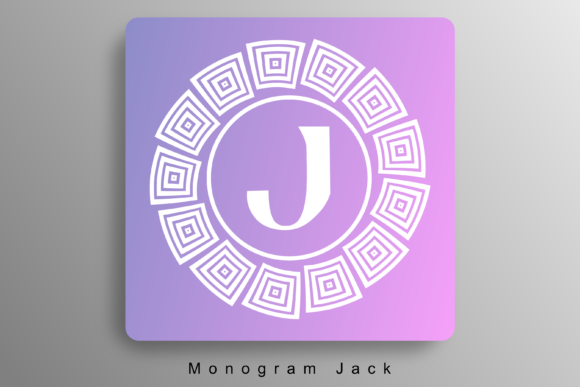
**Monogram Jack: The Unforgettable Touch to Your Creative Adventures**
In a world of ordinary fonts, Monogram Jack stands out as a beacon of creativity and individuality. This meticulously crafted decorative font, brought to life by the talented Rusd Studio, is a symphony of intricate details and captivating characters, ready to transform your designs into masterpieces.
**Immerse Yourself in the Beauty of Monogram Jack**
With Monogram Jack, you'll embark on a journey of visual exploration, where every letter is a work of art. Its graceful curves and elegant flourishes will add a touch of sophistication to your love letters, wedding invitations, and any design project that demands attention.
**Unearth the True Essence of Your Designs**
Monogram Jack is more than just a font; it's a gateway to unleashing your creative potential. Whether you're a seasoned designer or just starting your artistic journey, this font will guide you towards creating designs that resonate with your audience, leaving a lasting impression on their hearts and minds.
**The Perfect Font for Camping Sign: A Rustic Charm Like No Other**
If you're looking for the perfect font to capture the spirit of the great outdoors, look no further. Monogram Jack's intricate details and rugged charm will add a touch of authenticity to your camping sign, evoking the nostalgia of campfires and starry nights.
**Experience the Magic of Monogram Jack Today**
Don't settle for ordinary fonts that blend into the background. Embrace the beauty and uniqueness of Monogram Jack, and watch your designs come to life with a captivating charm that will leave your audience spellbound.